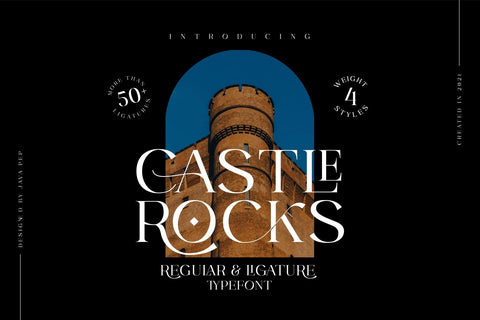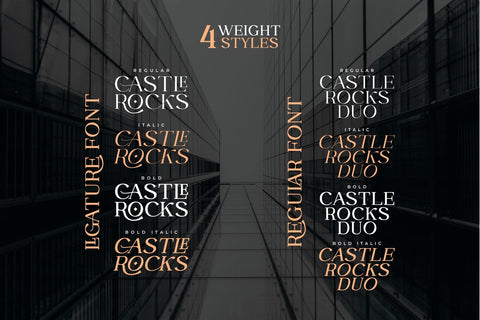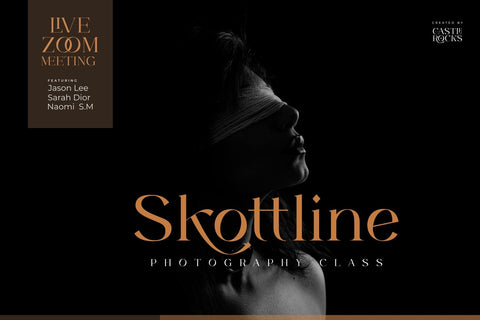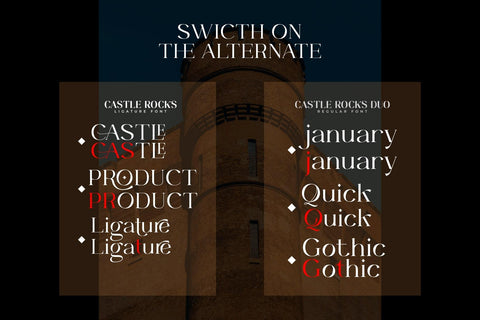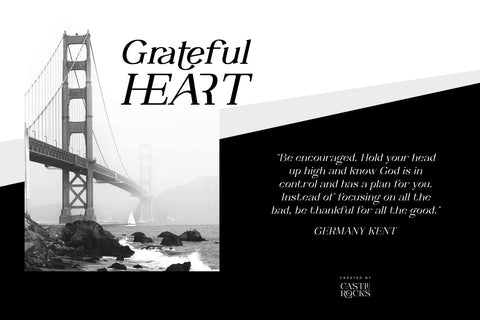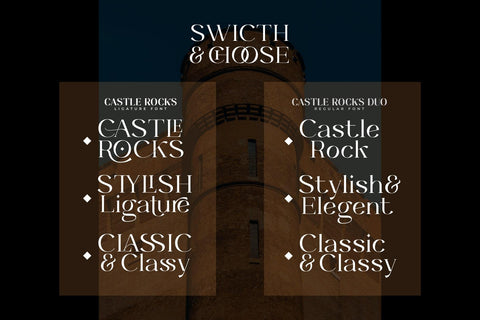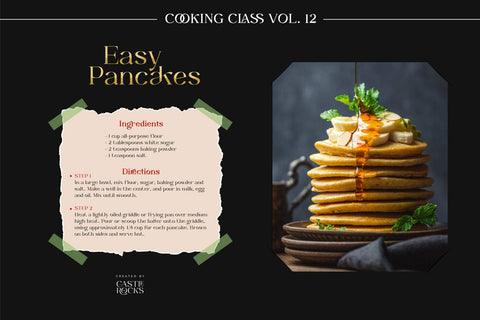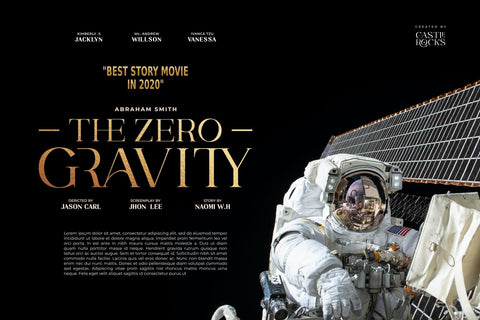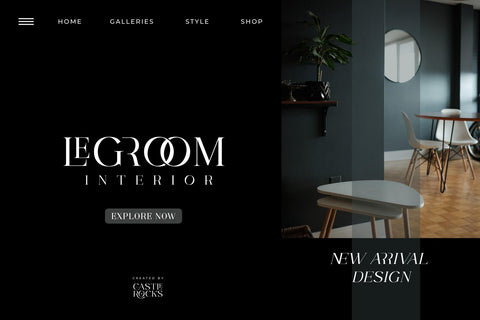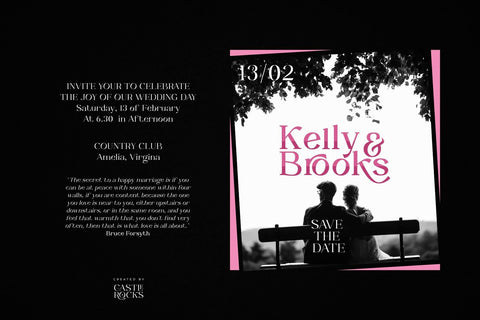
CASTLE ROCKS DUO -Ligature Font
Introducing ligature serif font called CASTLE ROCKS duo fonts, these fonts have more than 50 ligatures include full set in uppercase and lowercase. This package consists of CASTLE ROCKS is the ligature font and CASTLE ROCKS DUO is the regular font so you can combine it to mix and match with switch on ligature font (CASTLE ROCKS) or regular font (ASTLE ROCKS DUO ). CASTLE ROCKS duo fonts are pretty and elegant fonts that perfect for title, headline, logotype, personal branding, branding invitations, quote, magazine, text font, etc.
- CASTLE ROCKS (Ligature Font), this full set ligature font in uppercase and lowercase and have 4 weight style regular, italic, bold, and bold italic.
- CASTLE ROCKS DUO (Regular Font), this regular font without ligature feature so you can mix and match with CASTLE ROCKS or use to text font, this has 4 weight style regular, italic, bold, and bold italic.
- Multilingual, support more than 30 languages